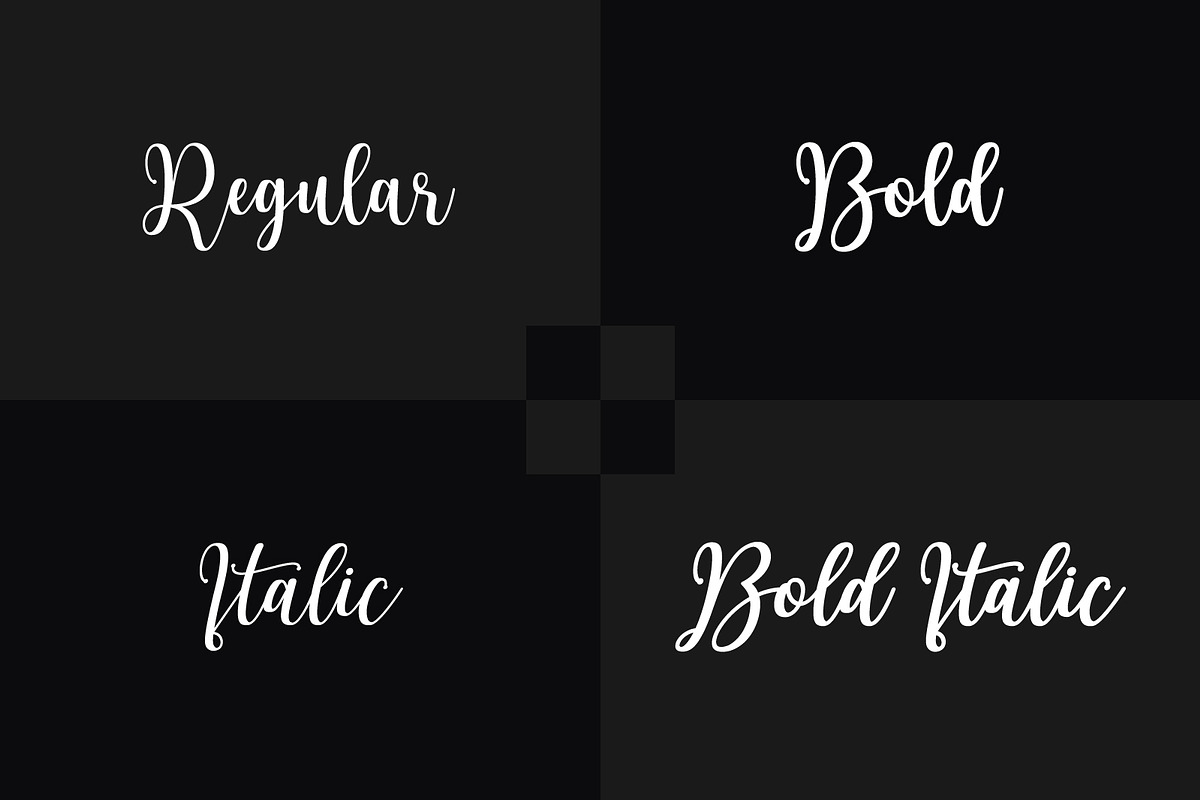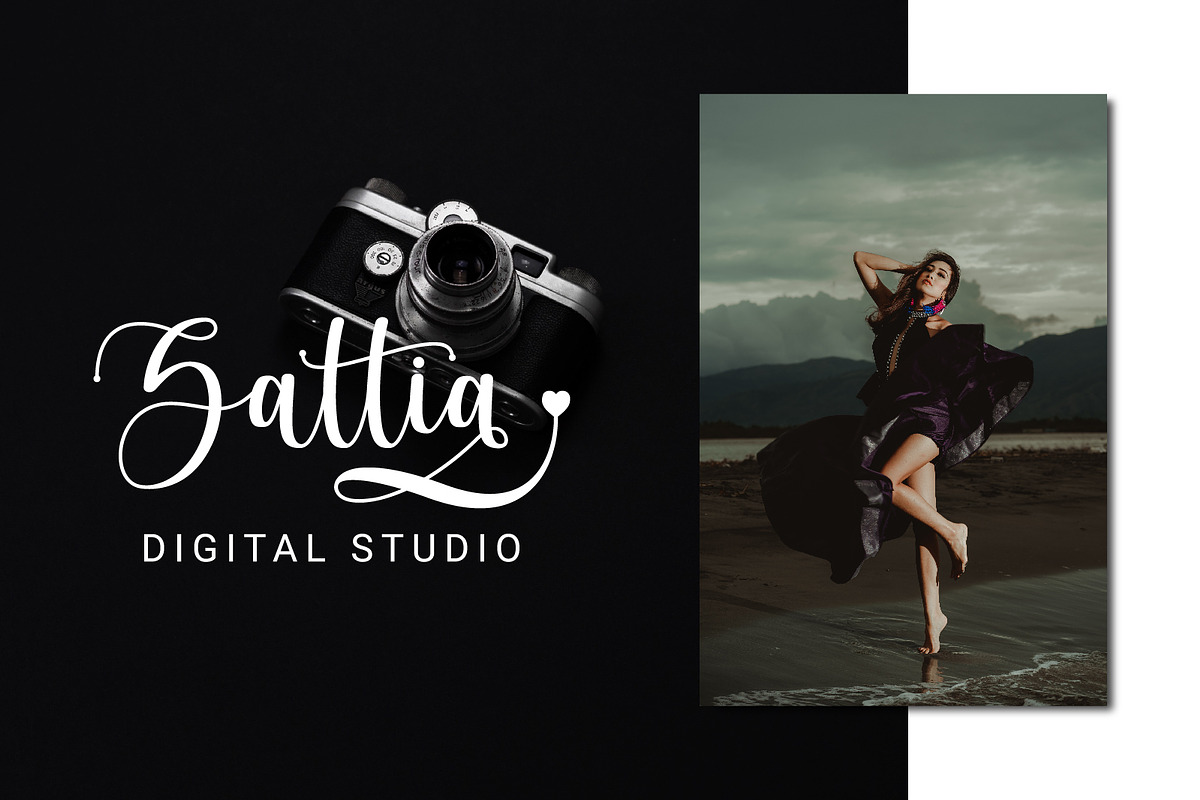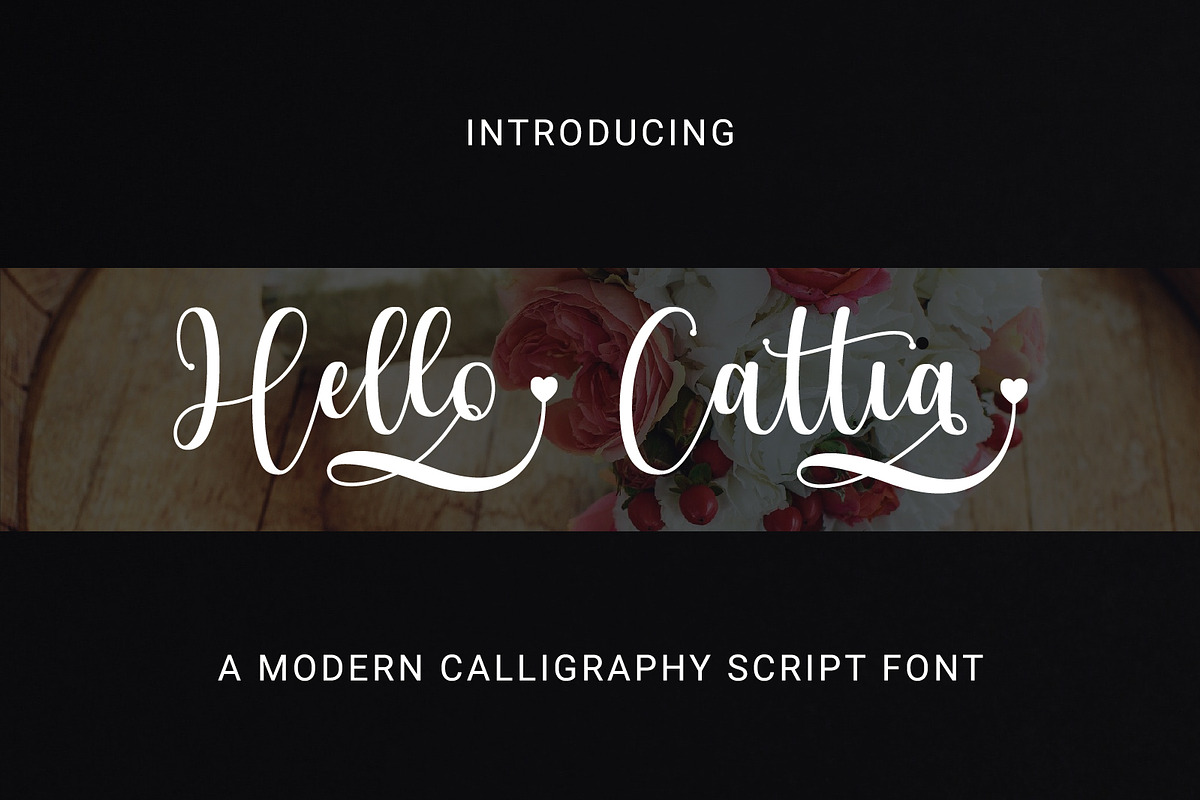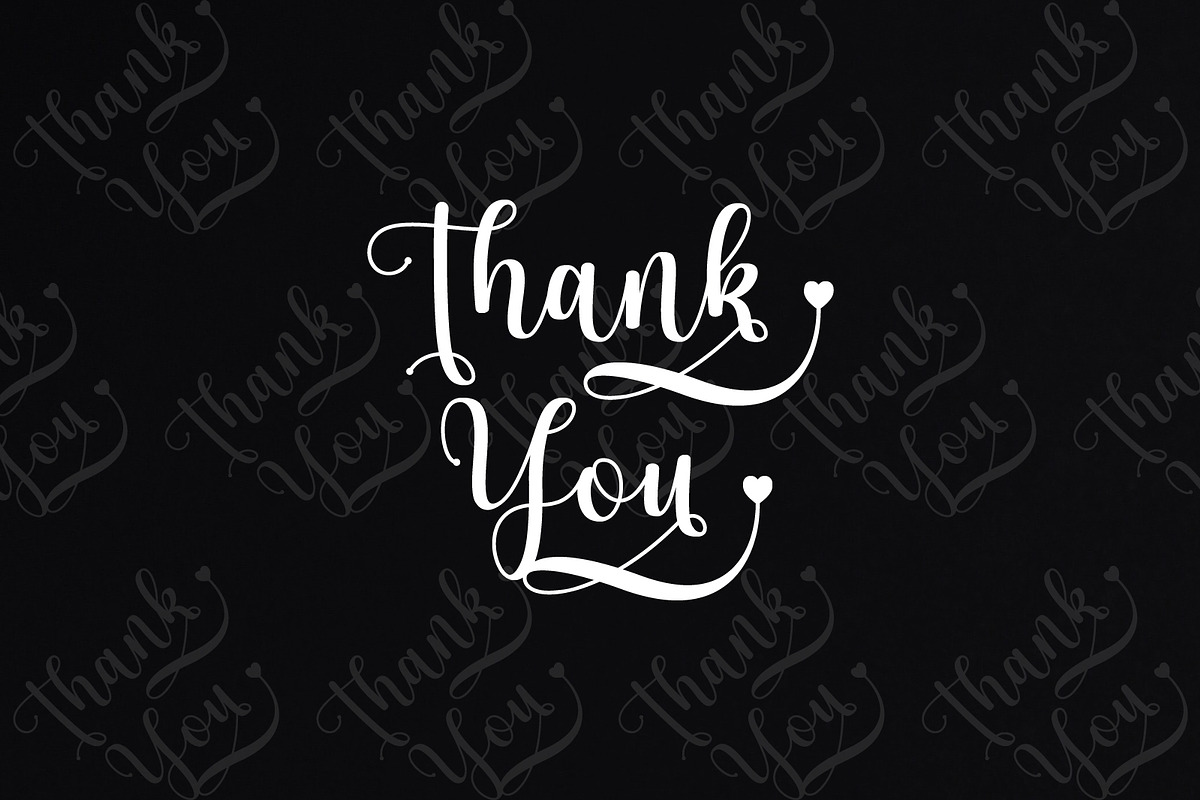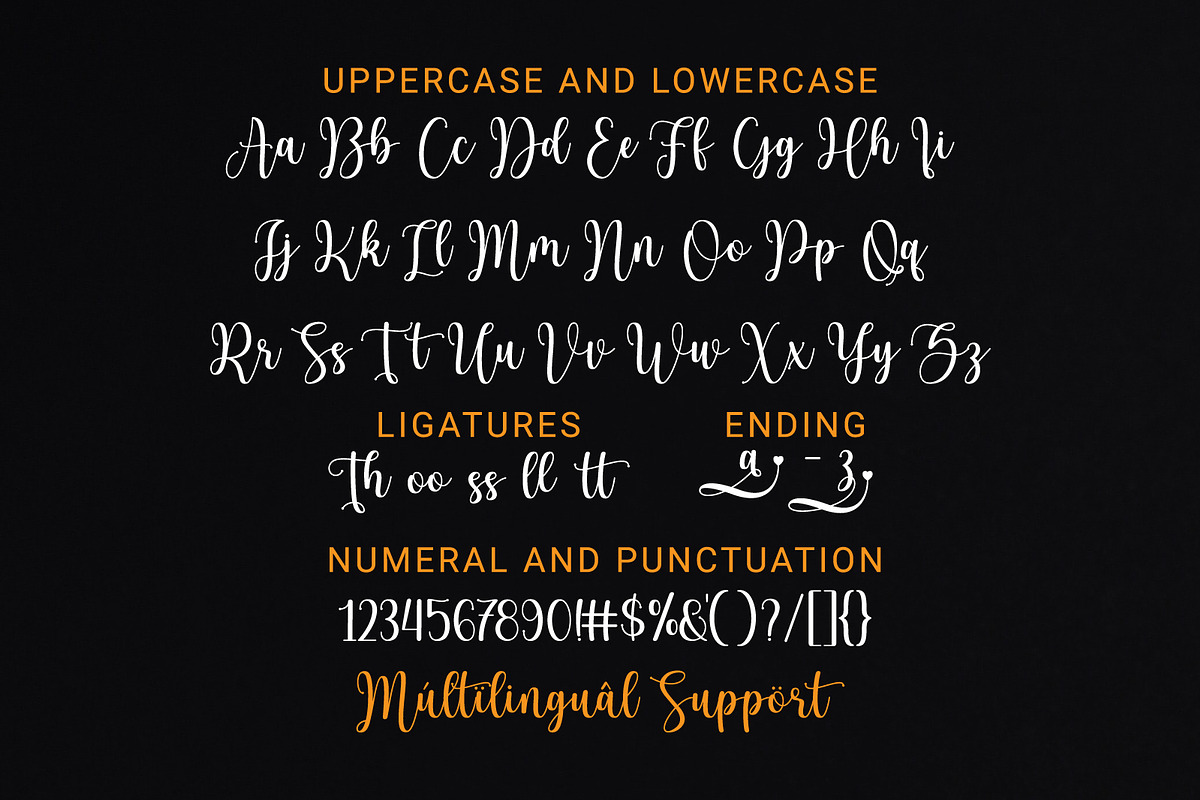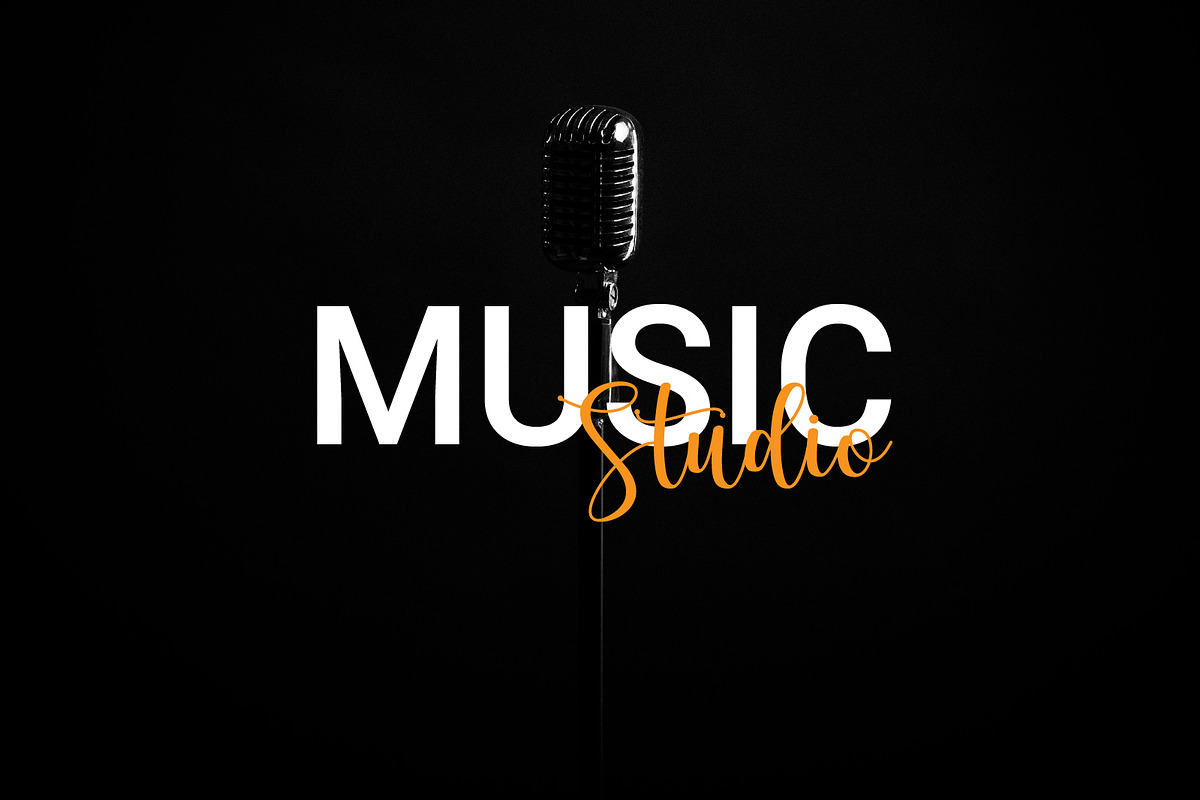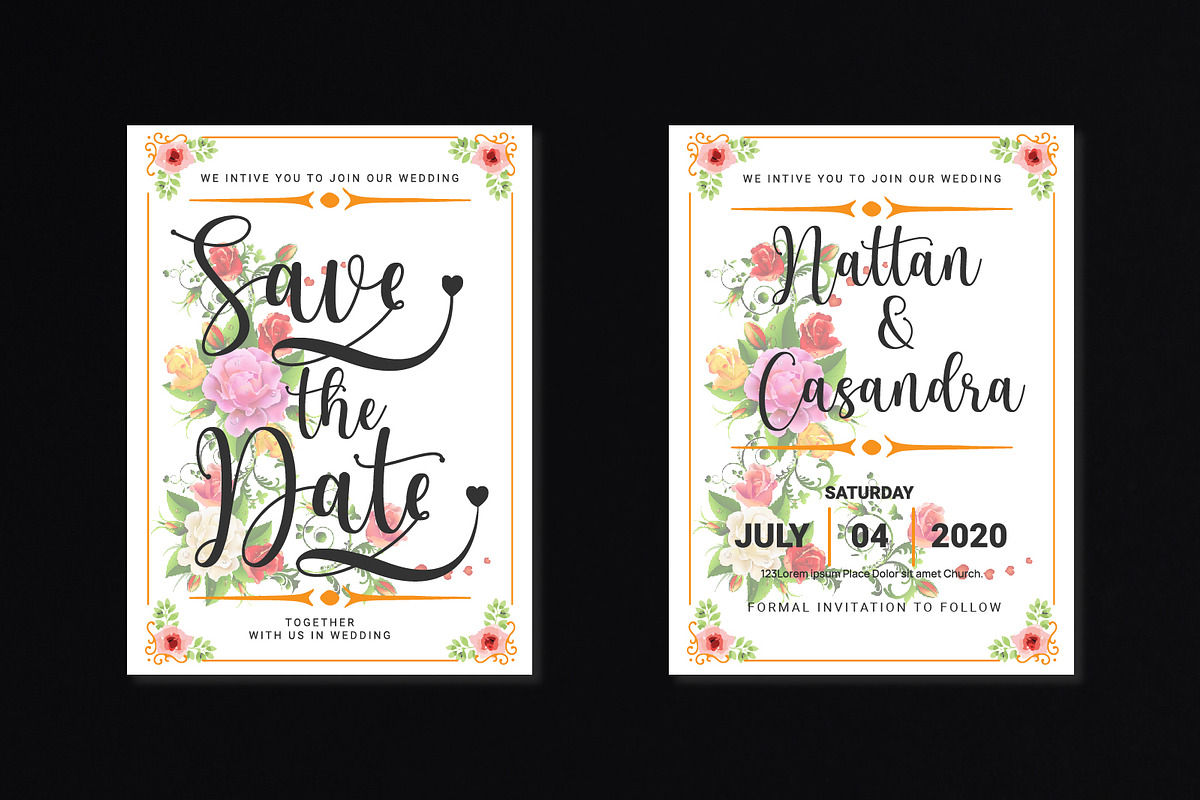
Hello Cattia | Calligraphy Sricpt
Hello Cattia is a cute and casual handwritten font with a very friendly feel. Whether you’re looking for fonts to make beautiful wedding invitations, beautiful artwork, interesting social media posts, and funny greeting cards. Hello Cattia also has cute alternative letters that can make your project look modern, luxurious and classy. This font will turn any creative idea into a true work of art!